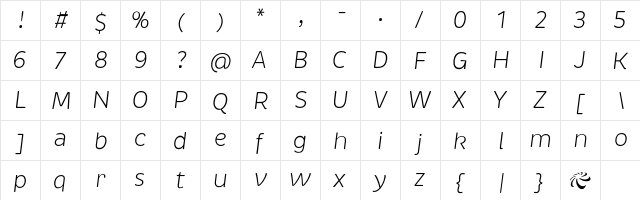
Brevia LightItalic Regular Font Preview
| Foundry | Hannes von Dn |
| Designer | Hannes von Dn |
Design Context for Brevia LightItalic Typeface
Brevia LightItalic takes a measured approach to typography — its balanced proportions and neutral character make it a reliable workhorse for both digital and print work. Its italic angle brings a sense of urgency and motion to the letterforms. Its slender proportions lend an understated elegance to any composition.
Pro Tip: Try Brevia LightItalic for annotation and caption copy alongside an upright companion — the contrast in angle creates a dynamic but ordered typographic system.